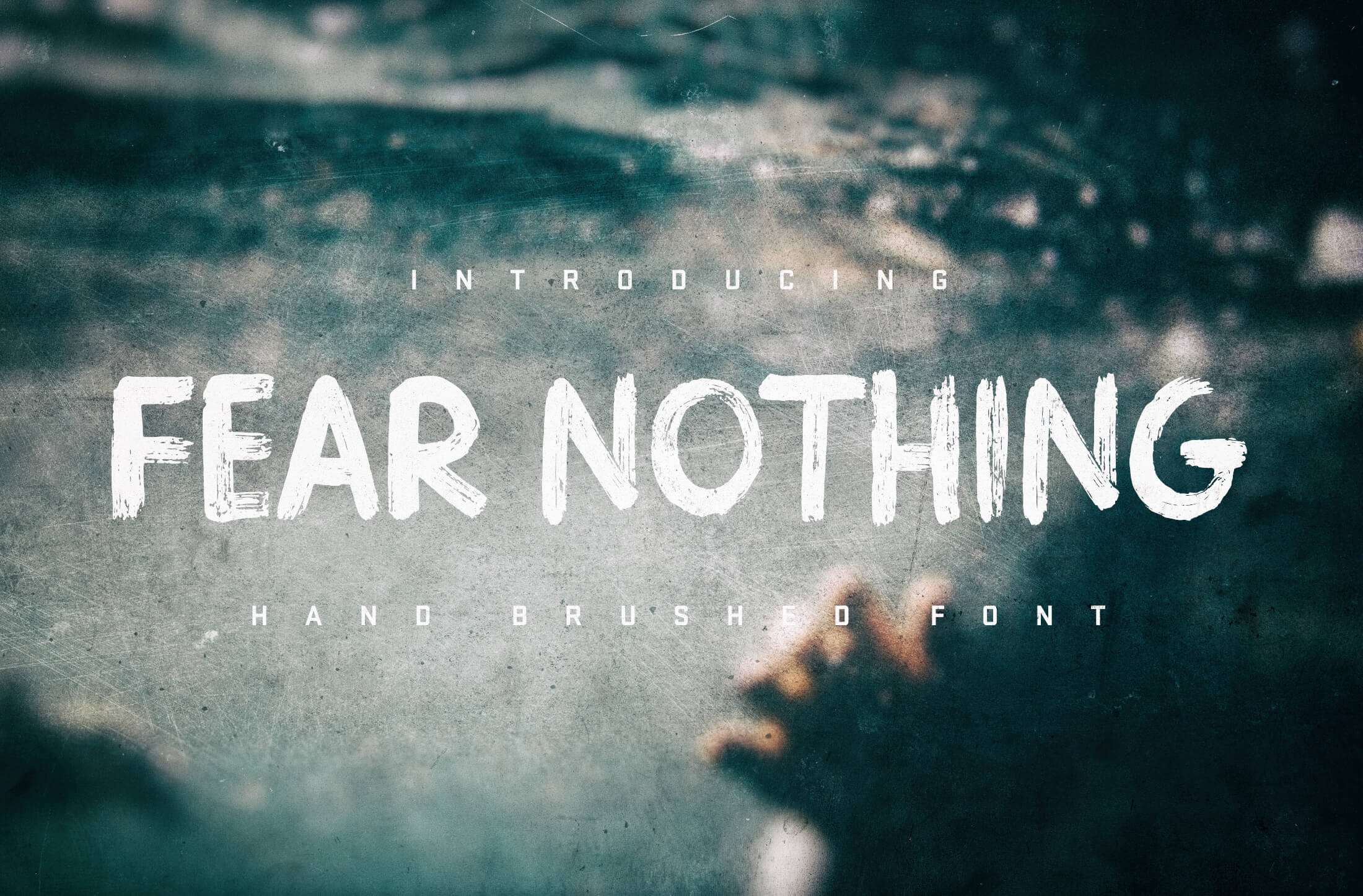
Fear Nothing Brush Font
FEAR NOTHING is a durable hand brushed font with an edge. Whether you want to use it on an album cover, a rustic/organic brand, or a motocross advertisement, you've got the solution. Flexible? Uh, check.
Fear Nothing is packed with uppercase characters, numbers, symbols and all the characters needed for latin-based languages (multilingual? anyone?). Check out the fifth image for a preview of every character/symbol included in this font.
Use Fear Nothing to create creative/unique brand packages, album covers, editorial, advertisements, posters, t-shirt designs, quotes, or heck, even a good 'ol inspirational quote or wallpaper.
Check out image 5 for a preview of every character/symbol included in the font.